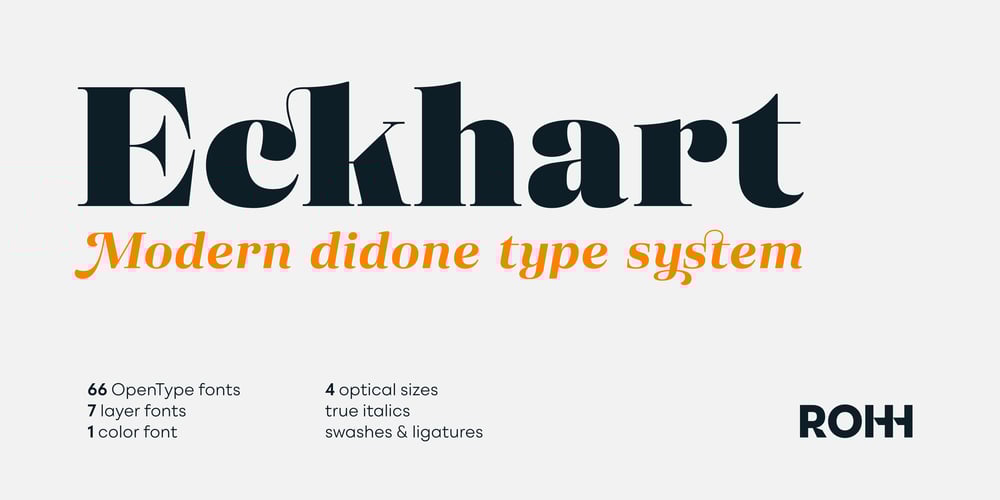
Eckhart
Eckhart font
Eckhart Font Family was designed by Roch Modrzejewski and published by ROHH. Eckhart contains 74 styles and family package options. Eckhart™ is a modern didone, high-contrast typeface designed to create elegant, original and expressive character. This versatile font family is delivered in four optical sizes, making it a complete type system for all kinds of use, from branding to setting paragraph text. It is equipped with ligatures, swashes and alternates to enrich design possibilities and make it very distinctive as a display typeface. Eckhart family features a very playful and energetic color font, giving broad new possibilities of display use, especially interesting for posters and magazines. Eckhart Color is delivered both as OTF color font as well as regular layered font in 6 layers – it helps to achieve maximum software compatibility and control over colors. Eckhart consists of 74 fonts in 4 optical sizes – 33 uprights and their corresponding true italics + color fonts. It has extended language support as well as broad number of OpenType features, such as case sensitive forms, standard and discretionary ligatures, stylistic sets, lining, oldstyle figures, slashed zero, fractions, superscript and subscript, ordinals, currencies and symbols. — Color font – user information: Eckhart Color Folk – OTF color font format has pre-defined color palette. In order to change the colors, please convert the text to outlines. You need compatible software to use the OTF color file, such as Adobe Photoshop CC, Adobe Illustrator CC, Pixelmator, etc. Eckhart Color Layered fonts – use the fonts one on top of the other in the order the fonts are numbered. These are regular OTF files, they work in all professional graphic software and you can edit the color of each layer. For web use – please use the color fonts as graphics, because not all web browsers support them.